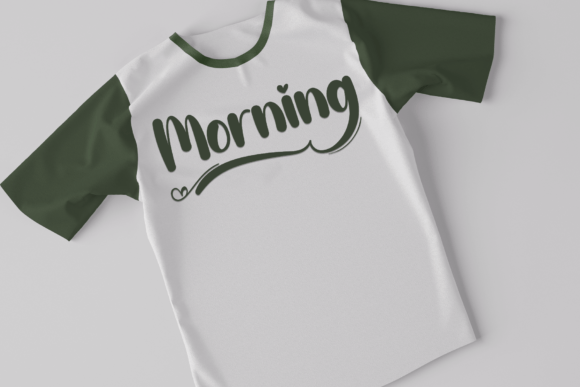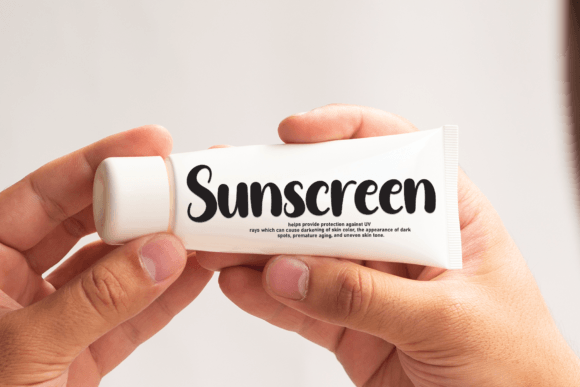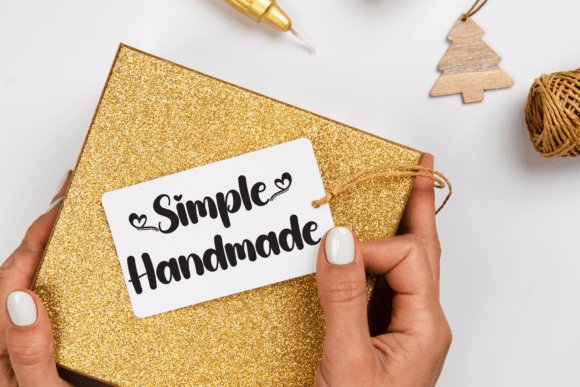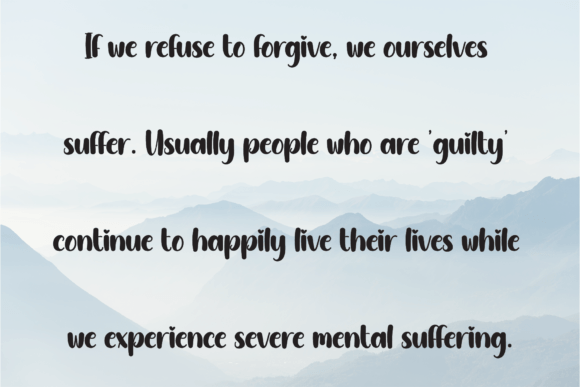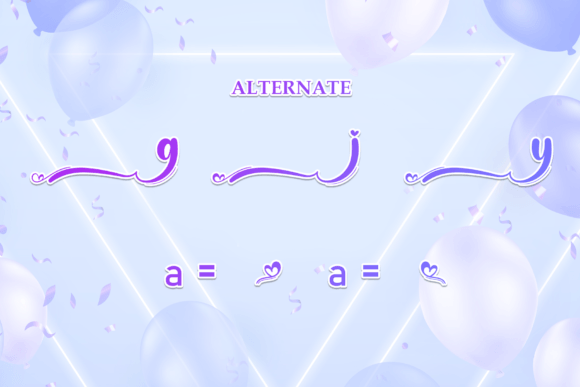
Hello Birthday Font: A Timeless Handwritten Font for Stunning Designs
Are you looking for a font that can add a personal touch to your designs? Look no further than the Hello Birthday font! This lovely and timeless handwritten font is perfect for creating eye-catching logos, branding, and quotes that will leave a lasting impression on your audience.
What Makes Hello Birthday Font So Special?
Hello Birthday is a beautifully crafted font that boasts a unique and elegant handwritten style. Every letter has a distinct touch that sets it apart from other fonts, making it perfect for designers and crafters who want to add a personal touch to their work. The font’s classic and timeless design ensures that it will never go out of style, making it a great investment for any designer or brand.
Hello Birthday font is incredibly versatile and can be used for a wide range of design projects. Whether you’re creating a logo, branding materials, or quotes, this font is sure to make your design stand out. Its elegant and cursive style makes it perfect for creating sophisticated and eye-catching designs that will capture the attention of your audience.
Unique and Beautiful Touch
One of the standout features of the Hello Birthday font is its unique and beautiful touch. Every letter has been carefully crafted to ensure that it has a distinct and elegant feel, making it perfect for designers who want to add a personal touch to their work. The font’s beautiful touch will make your design come alive, adding a level of sophistication and elegance that will set it apart from other designs.
Why Choose Hello Birthday Font?
There are many reasons why designers and crafters should choose Hello Birthday font for their design projects. Here are just a few:
• Timeless design: Hello Birthday font has a classic and timeless design that will never go out of style.
• Unique and elegant: Every letter has a unique and beautiful touch that sets it apart from other fonts.
• Versatile: Hello Birthday font can be used for a wide range of design projects, from logos and branding to quotes and more.
• Elegant and cursive: The font’s elegant and cursive style makes it perfect for creating sophisticated and eye-catching designs.
Tips for Getting the Most Out of Hello Birthday Font
Here are a few tips for getting the most out of Hello Birthday font:
• Experiment with different sizes and colors: Hello Birthday font looks great in a variety of sizes and colors, so don’t be afraid to experiment and find the perfect combination for your design.
• Pair with other fonts: Hello Birthday font pairs well with other fonts, so try combining it with a sans-serif font for a bold and eye-catching design.
• Use for branding: Hello Birthday font is perfect for branding, so consider using it for your logo, business cards, and other marketing materials.
Hello Birthday font is a timeless and elegant handwritten font that is perfect for designers and crafters who want to add a personal touch to their work. Its unique and beautiful touch, combined with its versatility and classic design, make it a great choice for a wide range of design projects. Whether you’re creating logos, branding materials, or quotes, Hello Birthday font is sure to make your design stand out.